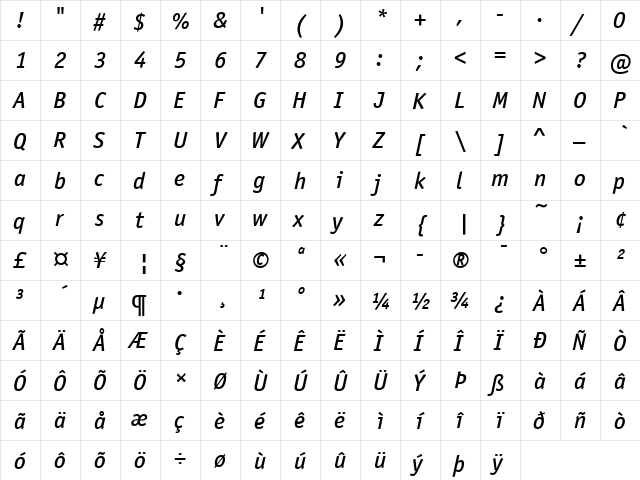
OfficinaSanITCMedium Italic
Design Context for OfficinaSanITCMedium Typeface
OfficinaSanITCMedium offers clean, dependable letterforms without strong stylistic allegiance, making it a practical choice for designers who need flexibility. The slanted form adds forward momentum and visual energy.
Pro Tip: Use OfficinaSanITCMedium for emphasis, pull quotes, and subheadings where its slanted energy can add rhythm to the layout.